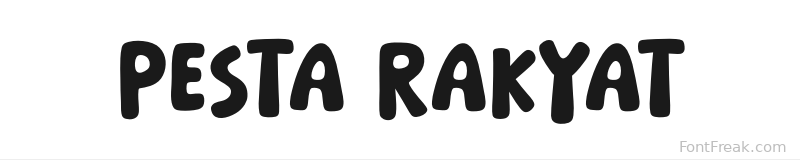
Pesta Rakyat
Pesta Rakyat is an engaging display font crafted by Syaf Rizal, characterized by its playful, bold design. This font falls into the decorative category, making it an excellent choice for projects that require a lively and eye-catching typographic style. The strokes are thick and rounded, conveying a sense of friendliness and approachability. Its minimal contrast and generous spacing enhance legibility while maintaining a whimsical charm, making it suitable for various applications.
The Pesta Rakyat font is ideal for vibrant wedding invitations, where its unique style can add a touch of personality. It also works exceptionally well on movie posters, capturing attention with its bold presence. Restaurant menus can benefit from this font by creating an inviting atmosphere, making dishes appear more appealing. Additionally, it can be used in children's books or educational materials, engaging young readers with its fun and approachable aesthetic. Graphic designers, small business owners, and content creators will find this font particularly valuable, as it can elevate the visual impact of their work.
What makes Pesta Rakyat stand out is its ability to blend playfulness with professionalism. Its distinctive design captures the essence of celebration and community, making it a fitting choice for projects that aim to convey joy and togetherness. This font not only enhances visual storytelling but also resonates with audiences on an emotional level. With the Pesta Rakyat font free download available, it offers an accessible option for those looking to infuse their designs with creativity and warmth. Whether for personal projects or professional endeavors, Pesta Rakyat is a font that leaves a lasting impression.